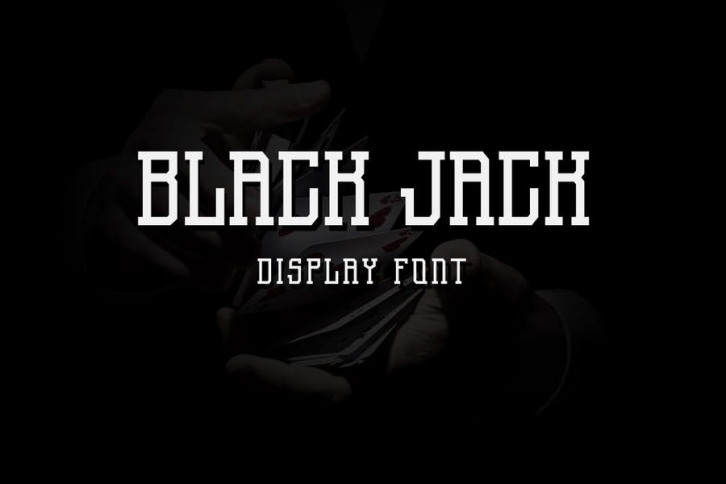
Black Jack is strong font. It brings a professional and firm look with its minimalist style.
It suits perfectly in the funny and formal forms, such as in the title of a magazine, headline, newspaper, office work, poster, book cover, logo, banner, also it can be used in any-scale artwork.
Black Jack is on the all capital style.